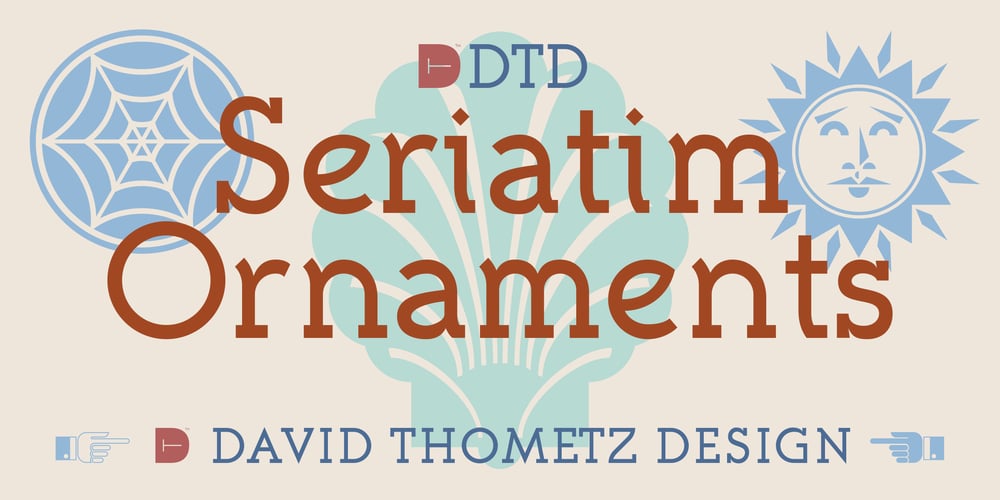
Seriatim Font Family was designed by David Thometz and published by David Thometz Design. Seriatim contains 1 styles and family package options. As seen on Typophile.com, DTD Seriatim is a new and innovative take on the geometric sans-serif, with a wide variety of alternate characters and elegant ornaments to make it a highly versatile type for display or more discreet text use.